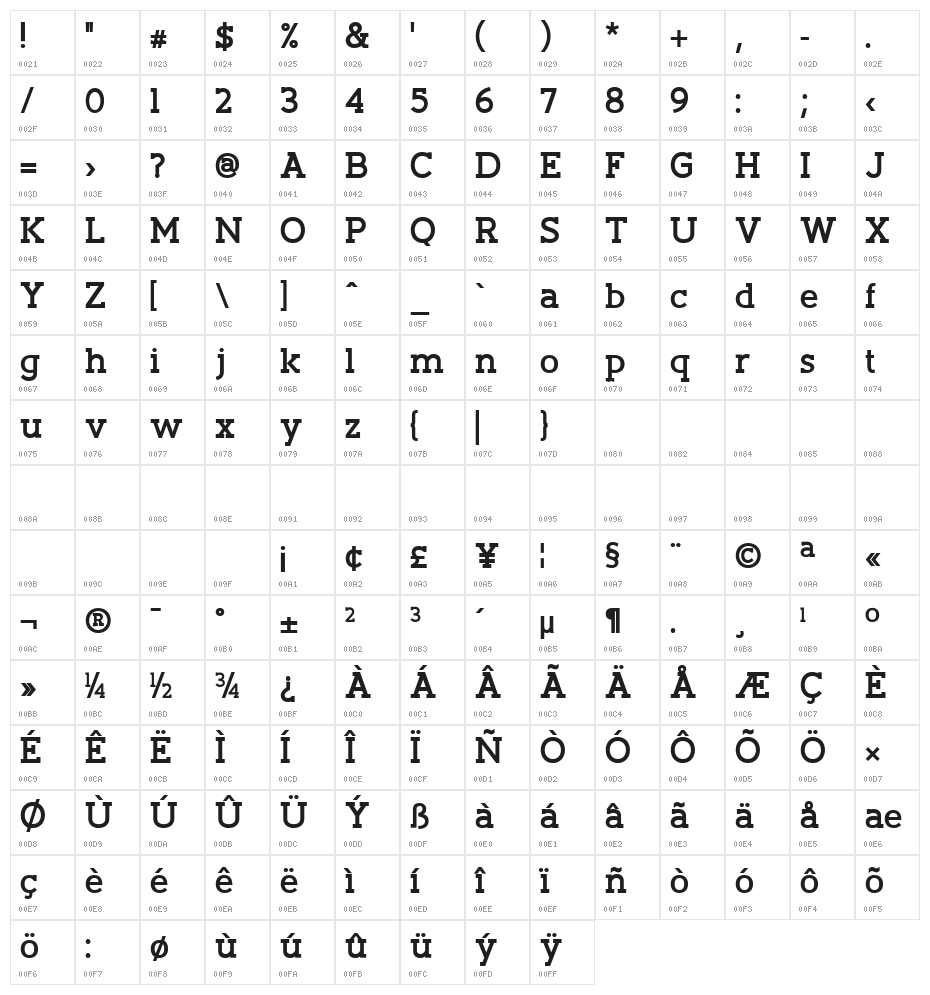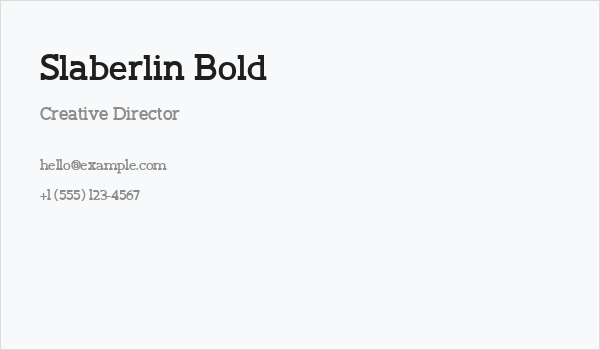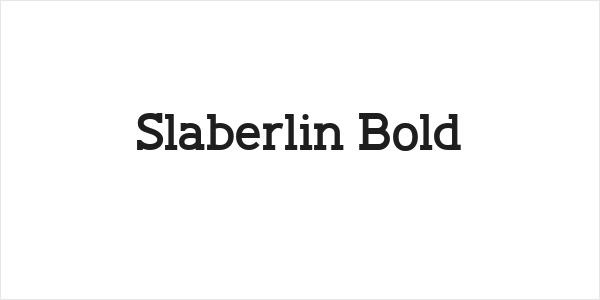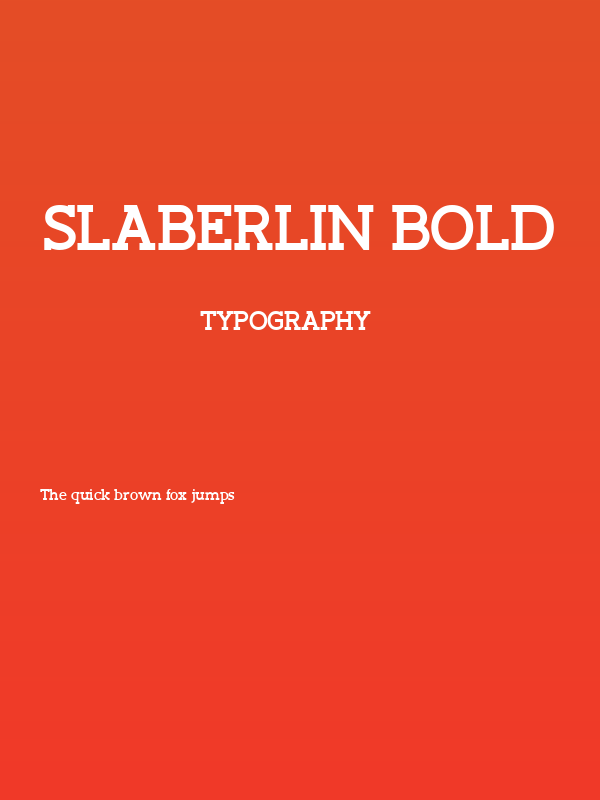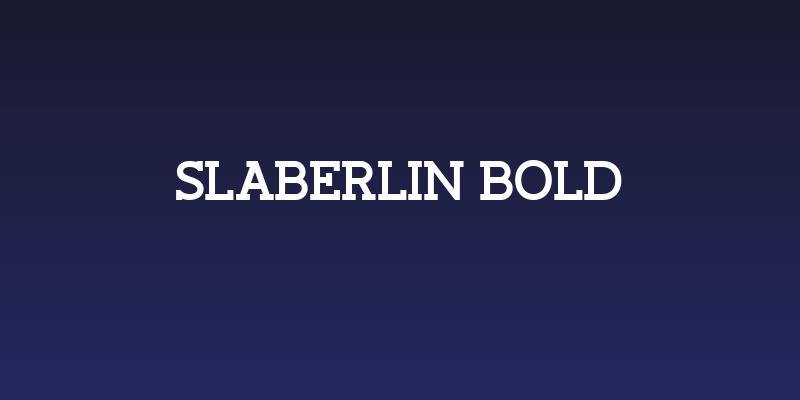
Slaberlin Bold Font
Slaberlin Bold Description
This font exhibits a bold and robust slab serif style, characterized by thick, block-like serifs that give it a strong and authoritative presence. The uppercase letters are uniform and balanced, while the lowercase letters maintain a consistent weight, ensuring readability. The numerals are clear and distinct, with a slightly rounded appearance that complements the overall geometric structure of the font. Special characters are well-integrated, maintaining the boldness and clarity seen throughout the alphabet. This font's design is both modern and timeless, making it versatile for various applications.
| Proposed Projects | Ideal for branding, headlines, posters, and any design requiring a strong, impactful typeface. |